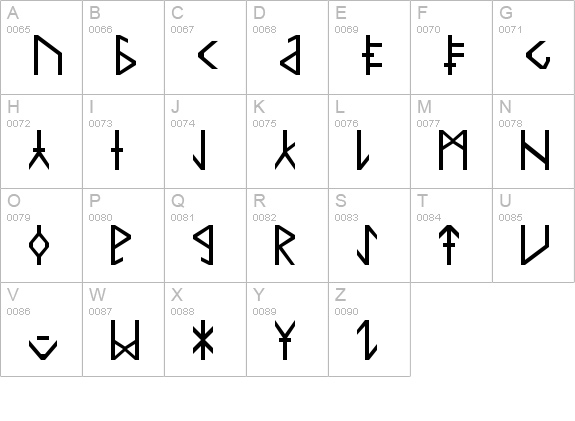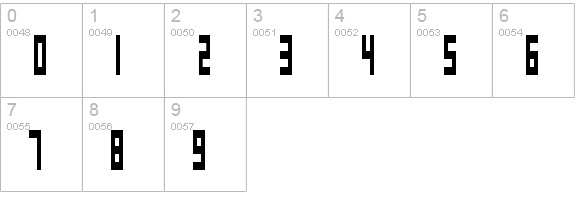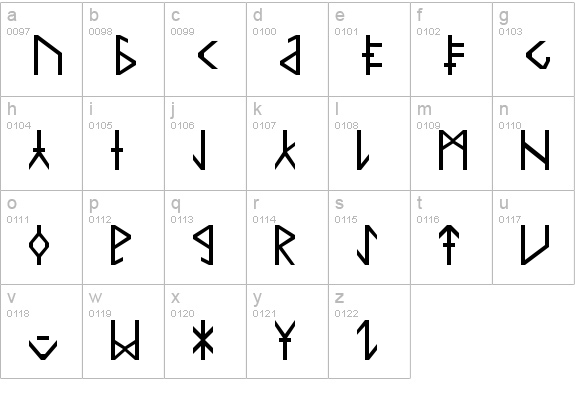
Common Tongue Font Details
Introducing Common Tongue font: a versatile and stylish typeface that is sure to elevate any design project. This elegant font features a perfect balance of classic charm and modern appeal, making it suitable for a wide range of applications. Common Tongue font is meticulously crafted with attention to detail, resulting in a clean and professional look that is easy to read. Whether you are designing a logo, branding materials, or website content, this font will add a touch of sophistication to your work. Best of all, Common Tongue font is completely free to download at FontsMarket.com. That's right - you can enhance your designs with this beautiful font without having to spend a dime. So why wait? Download Common Tongue font today and take your projects to the next level!